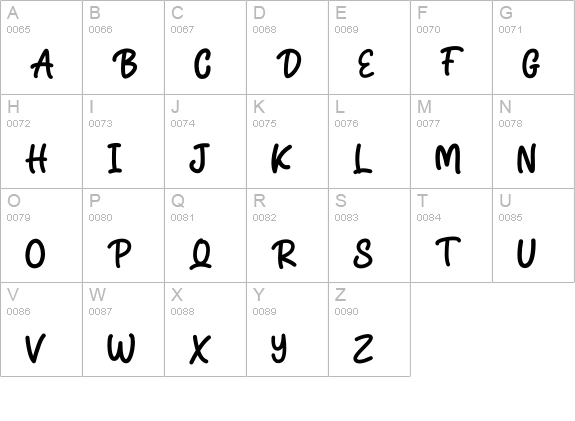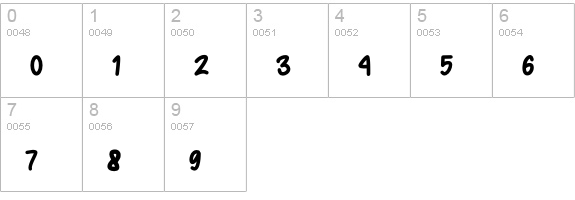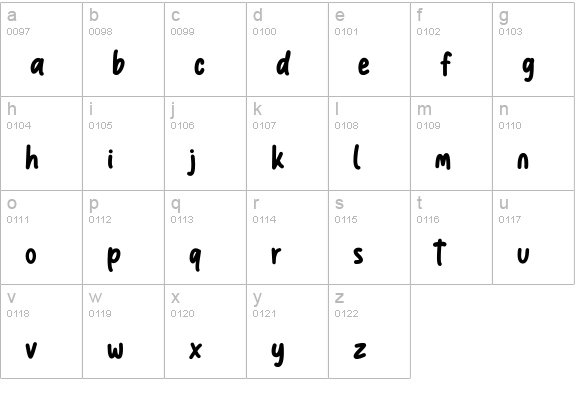
Introducing Sweet Candy font, a delightful and whimsical typeface that will add a touch of sweetness to your designs. This charming font exudes a playful and cheerful vibe, making it perfect for a variety of projects including invitations, posters, branding, and more.
With its bold and unique style, Sweet Candy font is sure to make your text stand out and leave a lasting impression. So go ahead and give your projects a sweet touch with this charming font today!